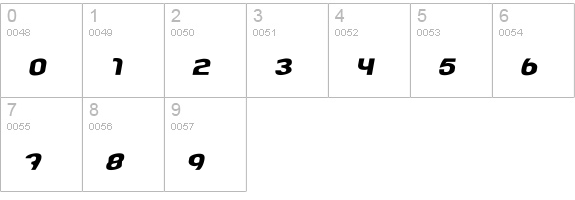
Claster-BETAitalic Font Details
Introducing Claster-BETAitalic font, a sleek and modern typeface that exudes sophistication and style. With its italicized design, this font adds a touch of elegance to any project or design. The Claster-BETAitalic font is perfect for creating eye-catching headlines, signage, branding materials, and more. What sets Claster-BETAitalic font apart is its unique blend of classic and contemporary elements, making it versatile and suitable for a wide range of design applications. Whether you're working on a website, print materials, or digital content, this font is sure to make a statement. Best of all, Claster-BETAitalic font is available for free download at FontsMarket.com. So, if you're looking to elevate your design projects with a stylish and modern font, look no further than Claster-BETAitalic. Download it today and bring your designs to life with this sophisticated typeface.